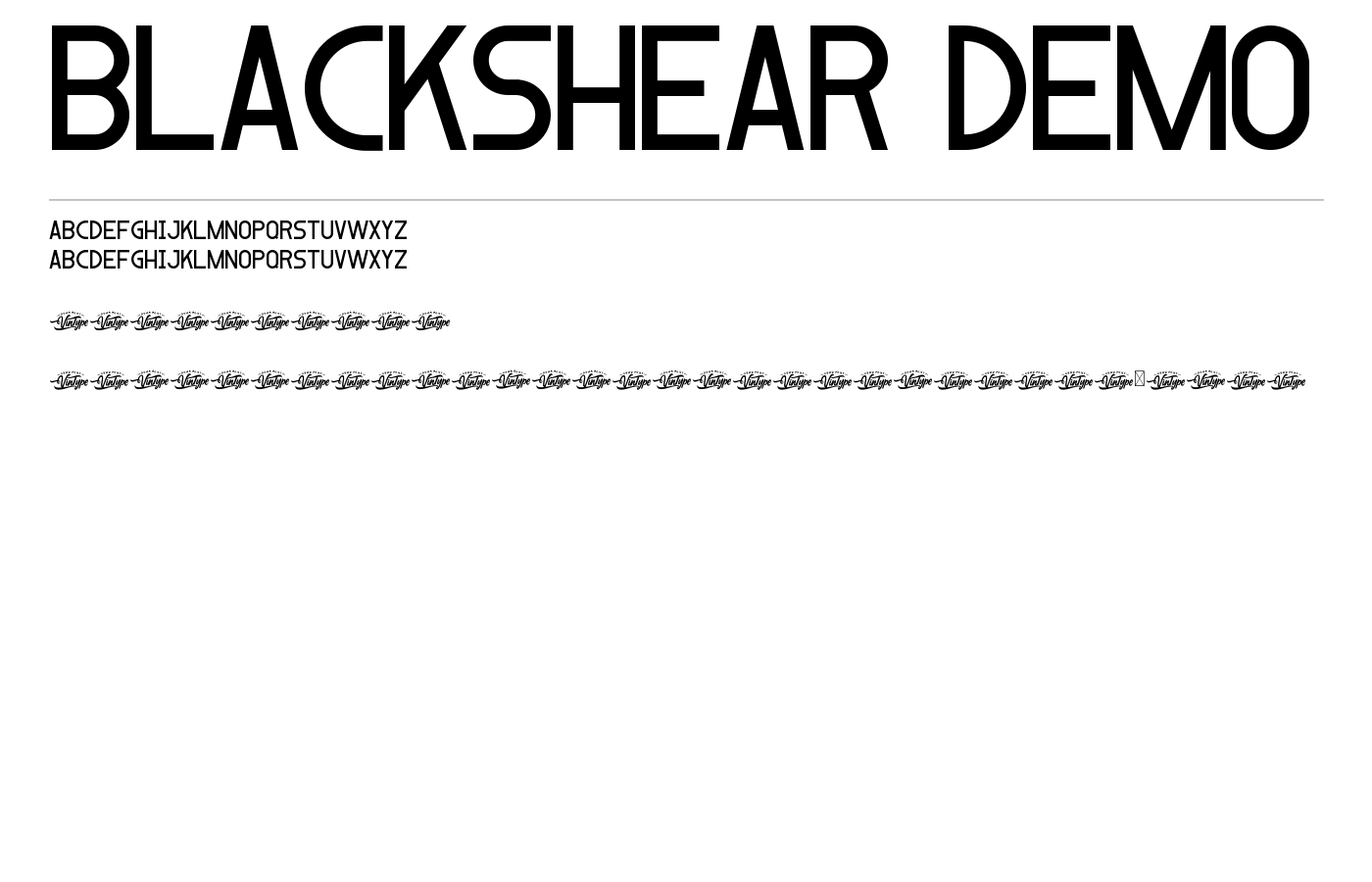
Blackshear Demo is a clean, geometric sans serif font with a modern and slightly condensed appearance. Its tall x-height and uniform stroke weight give it a sleek, professional feel, making it well-suited for headlines, branding, and editorial use where clarity and style are key. This font exudes a contemporary and confident personality, ideal for fashion, technology, and corporate designs seeking a refined yet approachable look.
Blackshear Demo Font
About Blackshear Demo Font